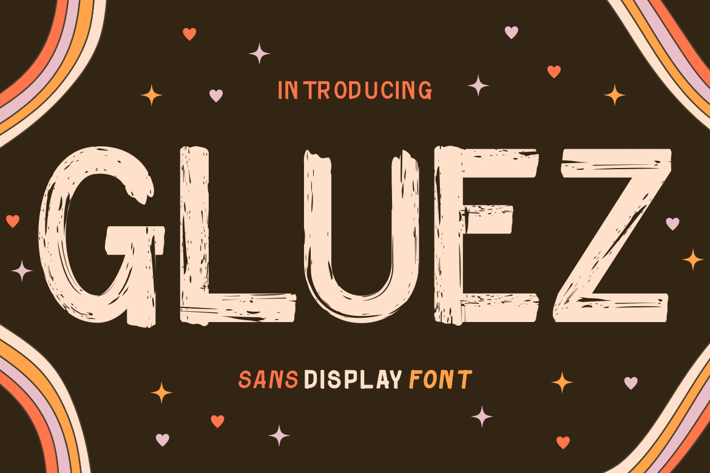
Gluez - Sans Display Font
Introducing Gluez - Sans Display Font, a captivating and stylish font that embodies a blend of modern flair with a brush-textured roughness. This sans serif display font is crafted to stand out, featuring unique strokes and a textured appearance that adds depth and character to any design. With its modern and slightly distressed look, Gluez is perfect for designers seeking to add a touch of uniqueness and edginess to their projects. Whether it's for bold headlines, eye-catching logos, or compelling branding materials, Gluez delivers impact and readability in a single package.
Gluez is versatile enough to be used across a variety of mediums. From crafting stunning titles for films to designing impactful book covers and engaging posters, this font ensures that your creations catch the eye and hold attention. Its rough texture makes it ideal for packaging designs that require a tactile feel, and its bold nature works wonderfully for business and promotional materials. If you're looking to inject a sense of individuality into your work, Gluez is the go-to font that combines artistic integrity with professional robustness.